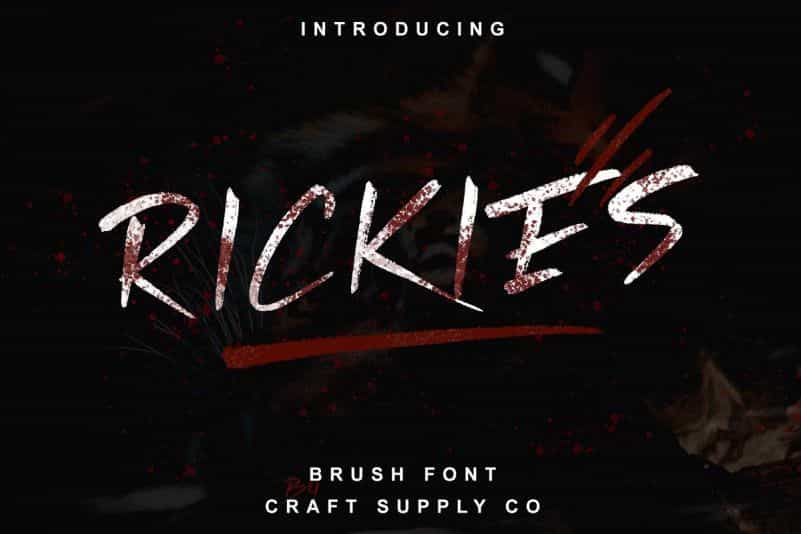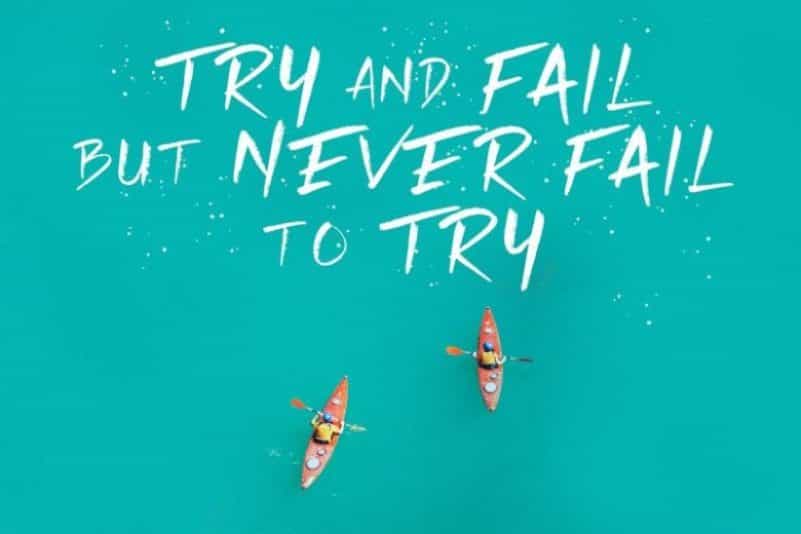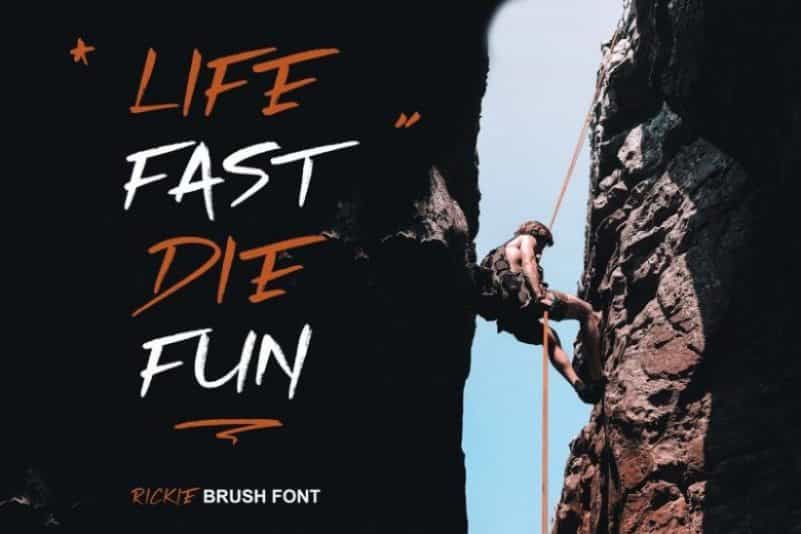
Rickies – is a brush font that was created on the basis of real handwriting expression. Rickies – is a great choice for fashion, e-commerce brands, trend blogs, wedding boutiques and any business that wants to look sophisticated and luxurious.